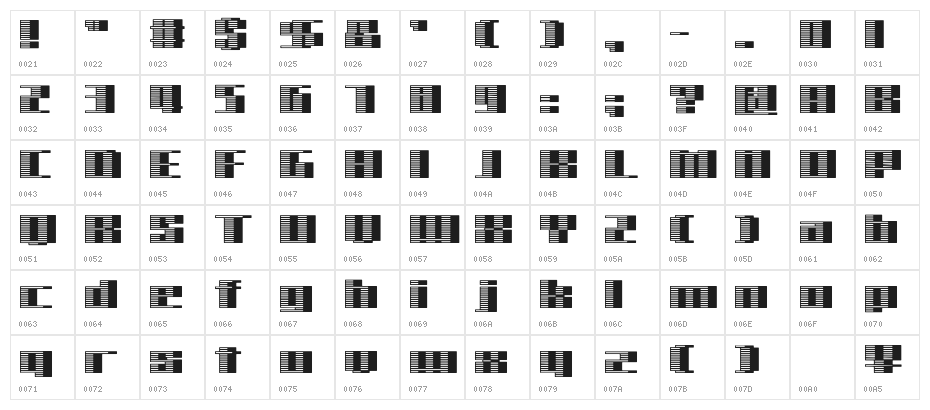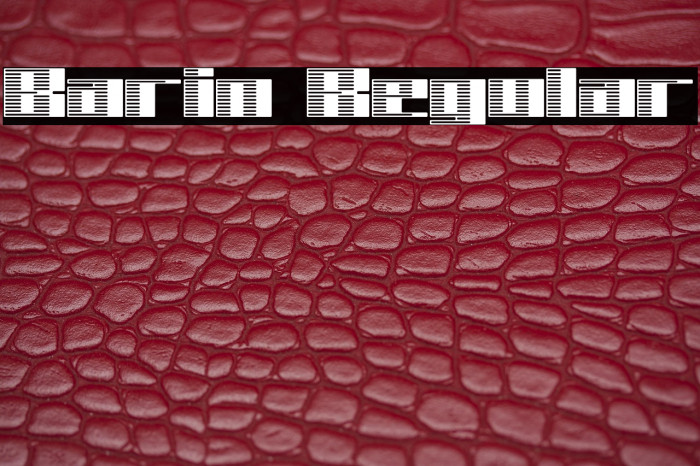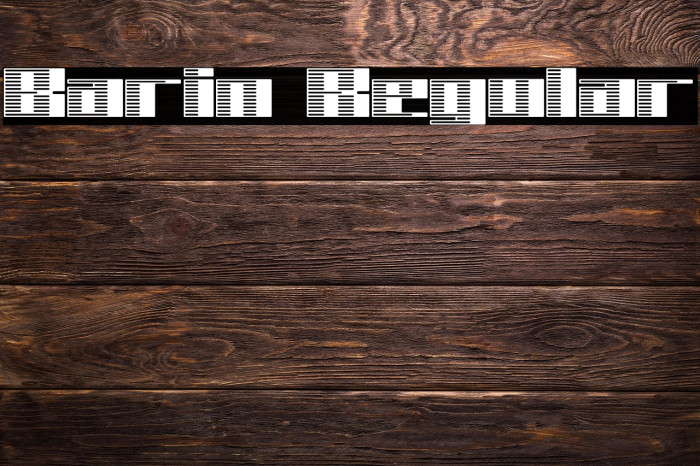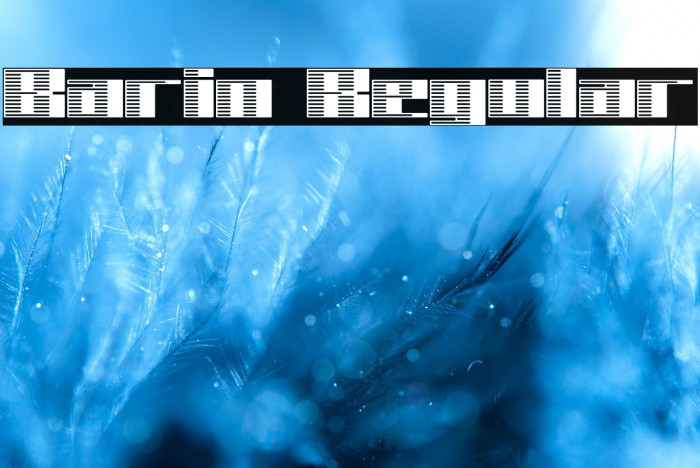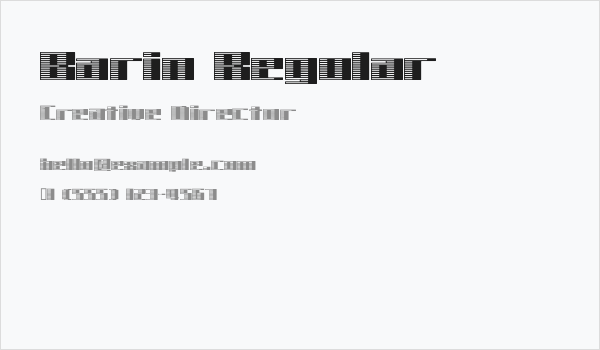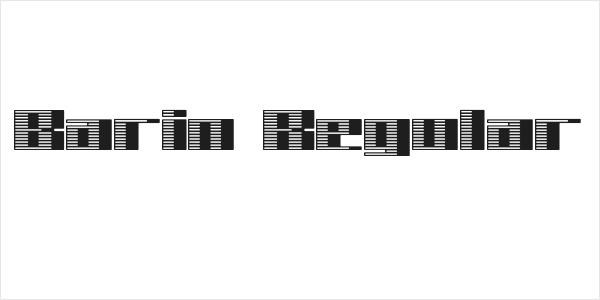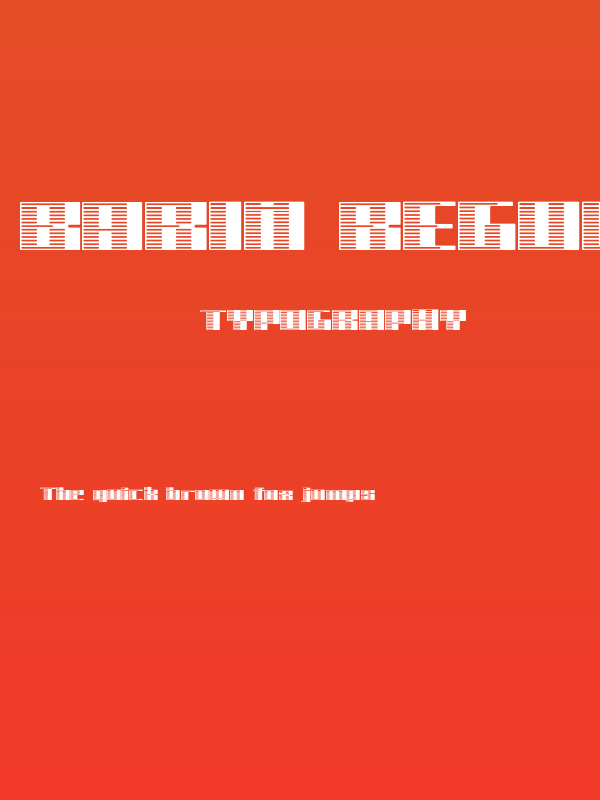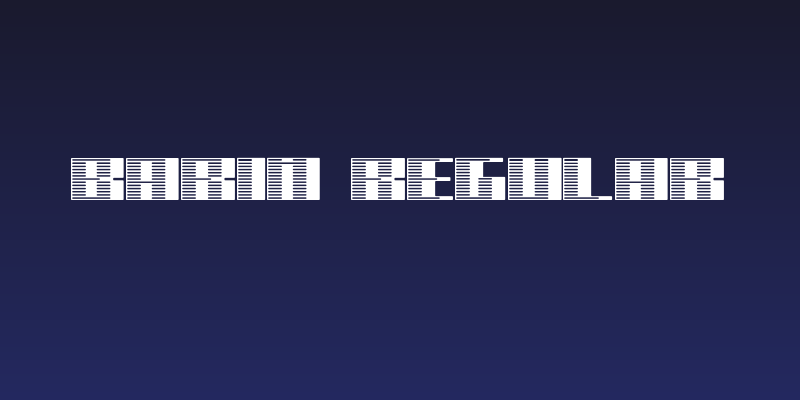
Barin Regular Font
Barin Regular Description
This font features a bold, decorative style with a unique striped pattern across each character, creating a sense of depth and texture. The characters are constructed with horizontal lines that give them a distinctive, layered appearance. The uppercase and lowercase letters maintain a consistent design, with the uppercase being slightly more pronounced. Numbers and special characters follow the same stylistic approach, ensuring uniformity across all glyphs. The font's design is eye-catching and modern, making it suitable for projects that require a strong visual impact.
| Proposed Projects | Ideal for posters, branding, headlines, and any design that requires a striking visual element. |